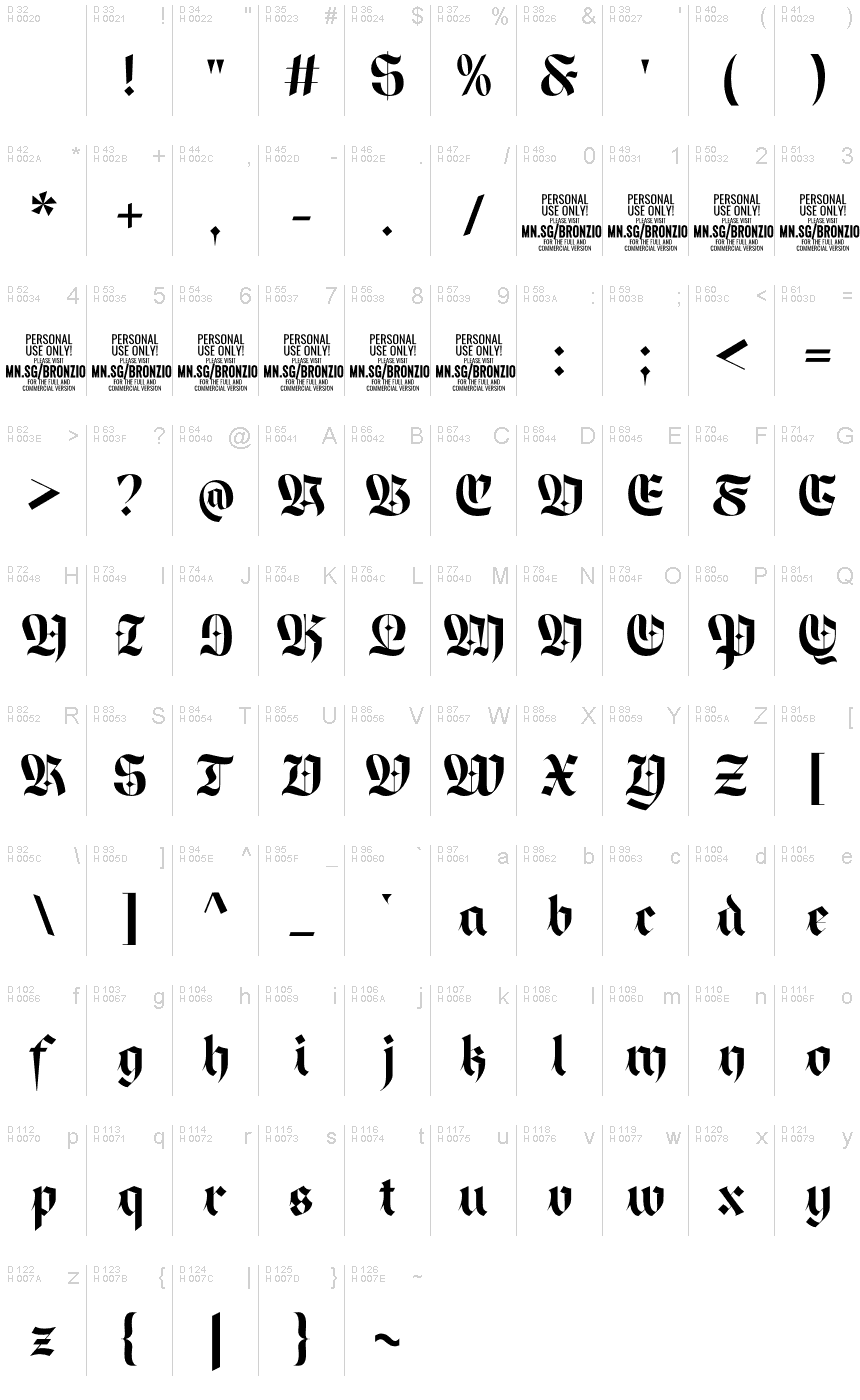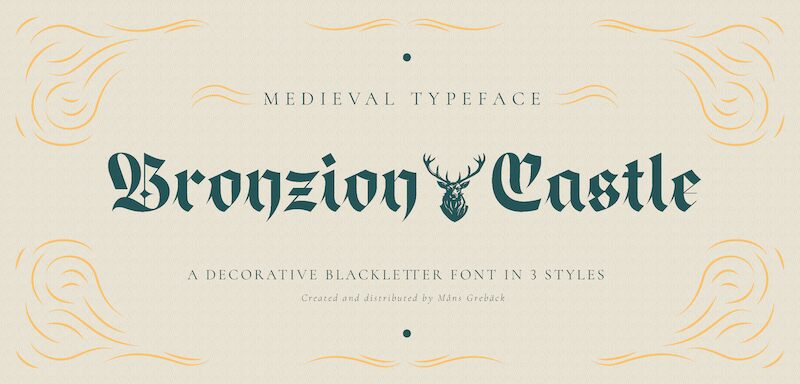
Bronzion Castle, designed by Mans Greback, is a gothic blackletter font that blends the ornamental beauty of medieval manuscripts with a modern twist. Its semi-bold weight adds a touch of contemporary sophistication to its traditional roots. This unique combination makes Bronzion Castle suitable for a wide range of projects.
For historical reenactments and period dramas, this font brings an authentic touch to posters, invitations, and event programs. Its elegant curves and intricate details also make it perfect for luxurious branding projects such as high-end fashion labels or upscale restaurants. Additionally, Bronzion Castle's modern style lends itself well to contemporary graphic designs, including album covers or book titles seeking a visually striking aesthetic. With its versatility and timeless appeal, Bronzion Castle is sure to elevate any design project with its distinctive charm.
Use characters ????????????????????????? to create heraldry-like logos and symbols.
Example: Magic?Empire